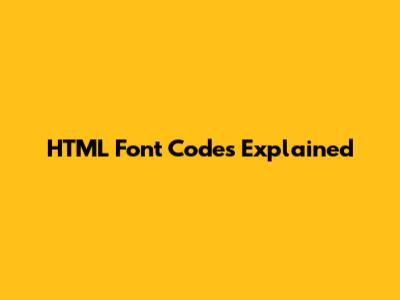
HTML Font Codes Explained
Hey everyone! Ever wondered how people get those fancy fonts on their websites? Well, you're in the right place, guys! Today, we're diving deep into the world of HTML font codes. It's not as complicated as it sounds, and understanding it will seriously level up your web design game. We'll break down how you can control the look and feel of your text, making your pages more engaging and, let's be honest, way cooler. So, grab your favorite beverage, get comfy, and let's get started on making your text pop!
Understanding HTML Font Tags
Alright, let's kick things off by talking about the OG way of handling fonts in HTML: the <font> tag. Now, before you get too excited, I gotta spill the tea – the <font> tag is deprecated. That means it's old news and not really recommended for modern web development. Browsers still understand it, but it's like using a rotary phone in the age of smartphones; it works, but there are way better, more efficient ways to do things. The <font> tag was originally used to control the face (the font family, like Arial or Times New Roman), the size, and the color of the text. Imagine wanting to make a heading stand out or highlight a crucial piece of information – that's what <font> was for. For instance, you could write <font face="Arial" size="5" color="blue">This is some blue Arial text!</font>. See? You specify the attributes directly within the tag. Pretty straightforward, right? But here's the kicker: using <font> tags clutters your HTML and makes it harder to manage your site's styles. When you want to change the font on a hundred pages, you'd have to go into each one and edit the <font> tag. Talk about a nightmare! That's why we moved on to better solutions. It's important to know about <font> because you'll still see it in older code, and understanding it helps you appreciate the evolution of web design. So, while we won't be using it much, give a little nod to the <font> tag for paving the way!
The <font> Tag: A Look Back
Let's take a slightly deeper dive into the historical context of the <font> tag, shall we? Back in the early days of the internet, styling web pages was a whole different ballgame. There weren't sophisticated tools like CSS (Cascading Style Sheets) readily available or as widely adopted. Developers needed a way to inject style directly into their HTML content. This is where the <font> tag stepped in. It was the primary, and often the only, way to manipulate the appearance of text on a webpage. The tag had three main attributes that gave designers some control:
• face: This attribute allowed you to specify the font family. You could list multiple fonts in order of preference, like <font face="Verdana, Arial, sans-serif">. If Verdana wasn't available on the user's computer, the browser would try Arial, and if that failed, it would fall back to a generic sans-serif font. This was crucial for ensuring some level of visual consistency.
• size: This attribute controlled the font size. It used a numerical scale from 1 to 7, with 3 being the default size. So, <font size="5"> would make the text larger than the default, while <font size="2"> would make it smaller. This provided a basic way to create hierarchy and emphasis.
• color: As the name suggests, this attribute let you set the text color. You could use color names (like red, blue, green) or hexadecimal color codes (like #FF0000 for red). For example, <font color="green"> would display text in green.
While these attributes offered some flexibility, they came with significant drawbacks. The biggest issue was the mixing of content and presentation. Your HTML code became a messy blend of the actual text you wanted to display and instructions on how it should look. This made the code difficult to read, maintain, and update. Imagine a large website where you decide to change the primary font color. With the <font> tag, you'd have to search and replace that color value across hundreds, maybe thousands, of HTML files. It was incredibly inefficient and prone to errors. Furthermore, the <font> tag didn't offer the granular control or the sophisticated styling options that CSS provides today. Things like line height, letter spacing, text shadows, and complex layouts were simply not possible with just the <font> tag. As the web evolved and the need for more robust styling grew, the limitations of inline styling with tags like <font> became glaringly obvious. This led to the development and widespread adoption of CSS, which separates the style from the content, offering a much cleaner, more powerful, and more flexible approach to web design. So, while the <font> tag is a relic of the past, understanding its role helps us appreciate the progress we've made in web development and why modern approaches are so much better.
The Modern Approach: CSS for Fonts
The landscape of web design has changed dramatically, and the go-to method for controlling fonts is now CSS (Cascading Style Sheets). Guys, I can't stress enough how much better CSS is! It's like upgrading from a flip phone to the latest smartphone – everything is easier, more powerful, and looks way better. CSS allows you to separate the style of your website from its content (the HTML). This means your HTML code stays clean and focused on what it's supposed to do: structure your content. Your CSS file, on the other hand, handles all the visual aesthetics, including fonts, colors, spacing, and layouts. This separation makes your website easier to maintain, more flexible, and more accessible. If you want to change the font across your entire website, you just make one change in your CSS file, and voilà! It's updated everywhere. Pretty sweet, right?
Font Family in CSS
In CSS, you control the font family using the font-family property. You can specify a list of font names, and the browser will use the first one it finds on the user's system. It's best practice to include a fallback font and a generic font family at the end. For example:
body {
font-family: Arial, Helvetica, sans-serif;
}
h1 {
font-family: "Times New Roman", Times, serif;
}
Here, the body text will try to use Arial, then Helvetica, and if neither is available, it will default to a generic sans-serif font. Similarly, h1 headings will attempt to use "Times New Roman", then Times, and finally a generic serif font. This ensures your text looks reasonably good no matter what fonts the user has installed. It's all about providing a consistent user experience.
Font Size with CSS
Controlling font size in CSS is super flexible. You can use various units like pixels (px), ems (em), rems (rem), percentages (%), or even keywords like small, medium, large. Pixels offer precise control, while ems and rems are relative units that scale better with user preferences and responsive design.
p {
font-size: 16px; /* Exactly 16 pixels */
}
h2 {
font-size: 2em; /* Twice the size of the parent element's font */
}
.caption {
font-size: 0.9rem; /* 90% of the root HTML element's font size */
}
Using relative units like em and rem is generally recommended for better accessibility and responsiveness. It allows users to adjust their browser's default font size, and your site will adapt accordingly.
Finally, always keep readability and accessibility at the forefront of your design choices. Ensure sufficient contrast between text and background colors. Use appropriate line spacing (line-height) to make text comfortable to read, especially for longer passages. Test your typography on different devices and screen sizes to ensure it looks and functions well everywhere. By following these guidelines, you'll not only create visually appealing websites but also ensure they are accessible and easy for everyone to use. Happy coding, everyone!